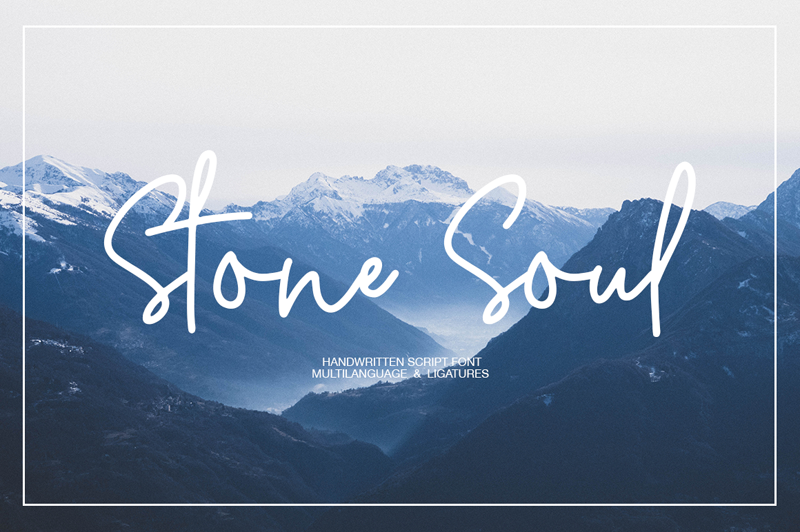
Font name: | Stone Soul |
Author: | Alexander Tiunov |
Note by Alexander Tiunov | |
Stone Soul - a new fresh handmade calligraphy font. Very suitable for greeting cards, branding materials, business cards, quotes, posters, and more!This font are perfect for wedding postcard. Or you can create perfect and unique design of your logo, blog, stationery, marketing, magazines and more :) Features : UpperCase & Lowercase Numerals & Punctuations Multilingualcharacters(A������C�D�E����I����N�O������U����WYݟ� ƌ��������������������������������) LIGATURES |